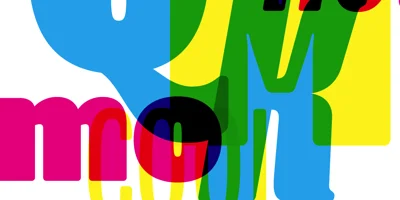
Key Factors to Consider When Choosing Fonts: Design Tips
Selecting the right font is crucial to creating a successful design that communicates effectively and resonates with the target audience. Here are the key factors to consider when choosing fonts for your projects.
1. Readability
- Ensure the font is easy to read across different devices and sizes.
- Consider the spacing, letterforms, and contrast to avoid visual strain.
- Sans-serif fonts are generally preferred for digital content, while serif fonts work well for print.
2. Brand Personality
- Choose fonts that align with the brand’s personality and message.
- A luxury brand may opt for elegant serif fonts, while a tech company may prefer sleek sans-serif options.
- Consider using font pairings that reflect the brand’s tone and identity.
3. Versatility
- The font should be flexible enough to be used across various media, from digital to print.
- Look for fonts with multiple weights and styles to add diversity while maintaining consistency.
- Test the font in different contexts before finalizing your choice.
4. Legibility in Different Sizes
- Fonts should be legible at different sizes and on various screens.
- Avoid overly decorative fonts for body text, as they can compromise clarity.
- Use bold and italic variations strategically to enhance readability.
6. Font Pairing
- Combining complementary fonts can create visual interest and hierarchy.
- Stick to a maximum of 2-3 fonts to maintain consistency and avoid clutter.
- Use contrast (e.g., pairing a serif with a sans-serif) for effective differentiation.
7. Cultural Appropriateness
- Fonts can evoke different cultural perceptions and emotions.
- Consider cultural factors and regional typography trends when designing for a global audience.
- Ensure the font supports the necessary language characters and glyphs.
8. Mood and Emotional Impact
- Fonts can convey different emotions such as elegance, playfulness, or professionalism.
- Choose fonts that reinforce the intended emotional connection with the audience.
- Test how the font feels in real-world applications.
Choosing the right font involves balancing aesthetics, functionality, and brand identity. By considering these key factors, you can ensure that your typography enhances the overall effectiveness and appeal of your design.